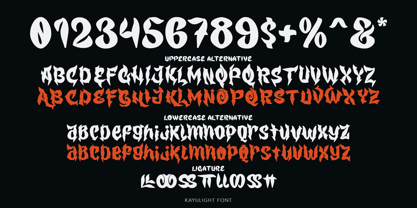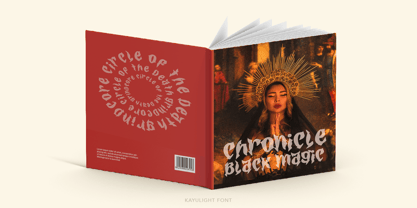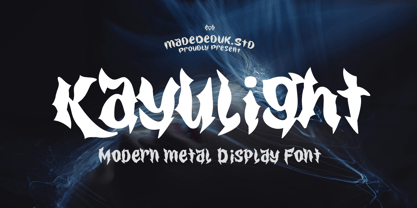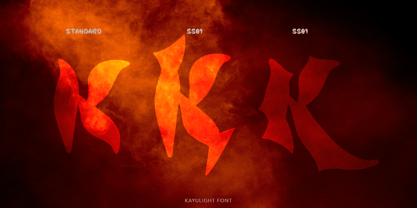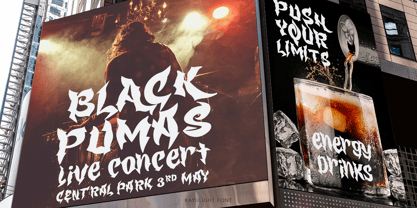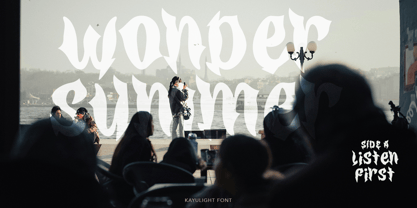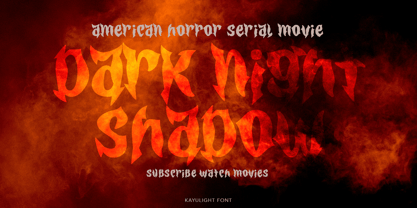
Kayulight
by madeDeduk
The Kayulight Font Family was designed by madededuk and published by madeDeduk. Kayulight contains 1 styles.
Really excited to introduce Kayulight is a modern gothic font, made with a heavy sharp impression and supported by alternative with references to various letters that I combine. Suitable for merchandise, clothing, apparel, badges, logos, poster titles, and much more.